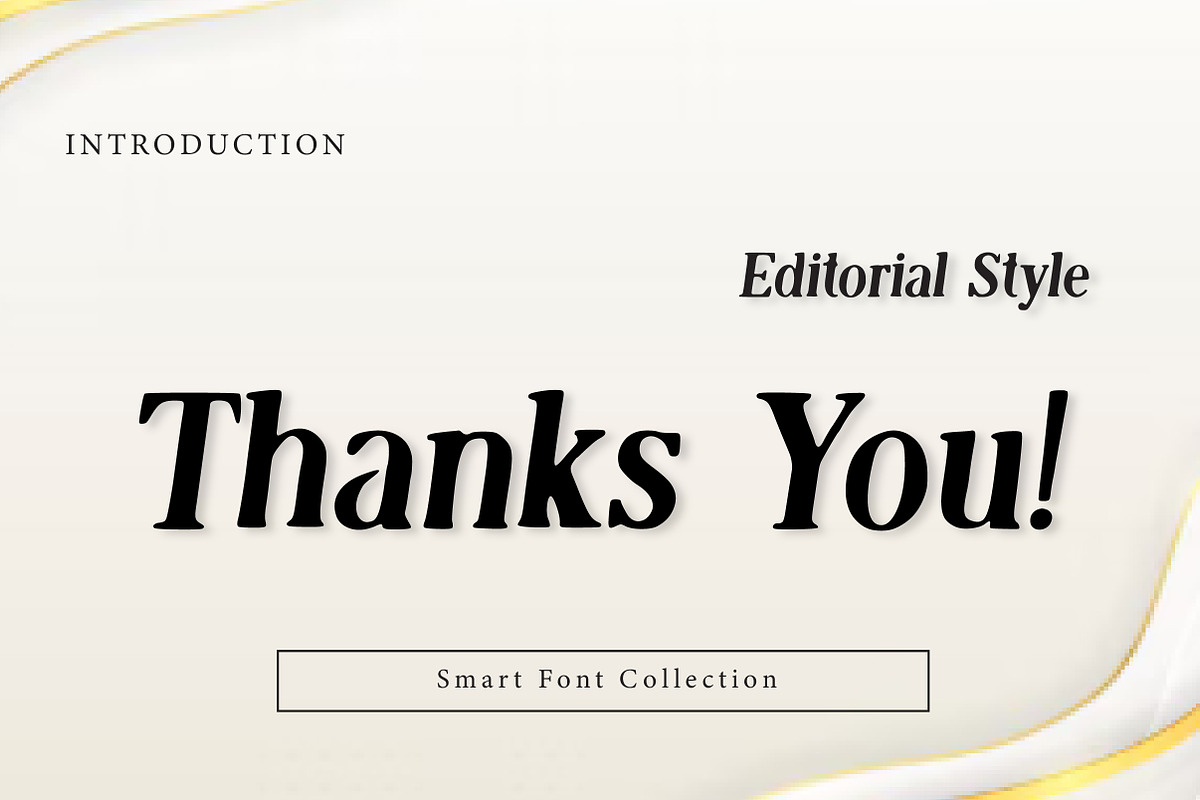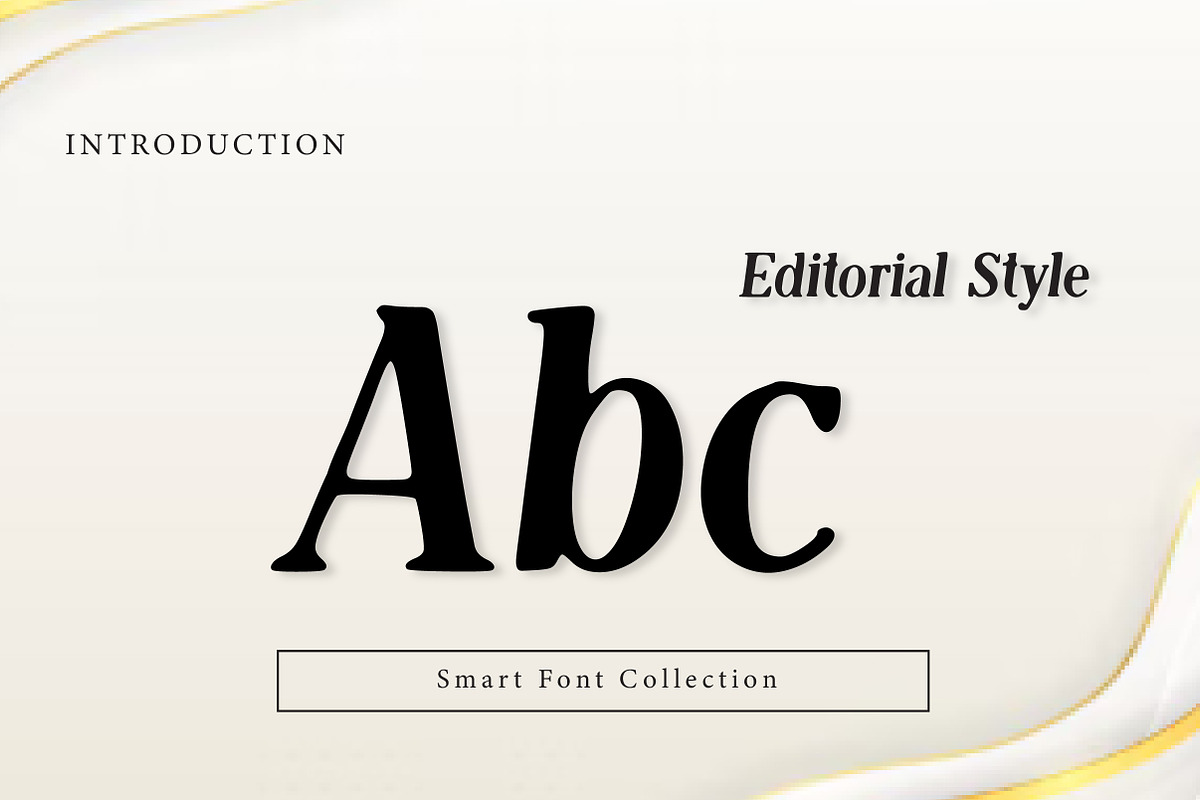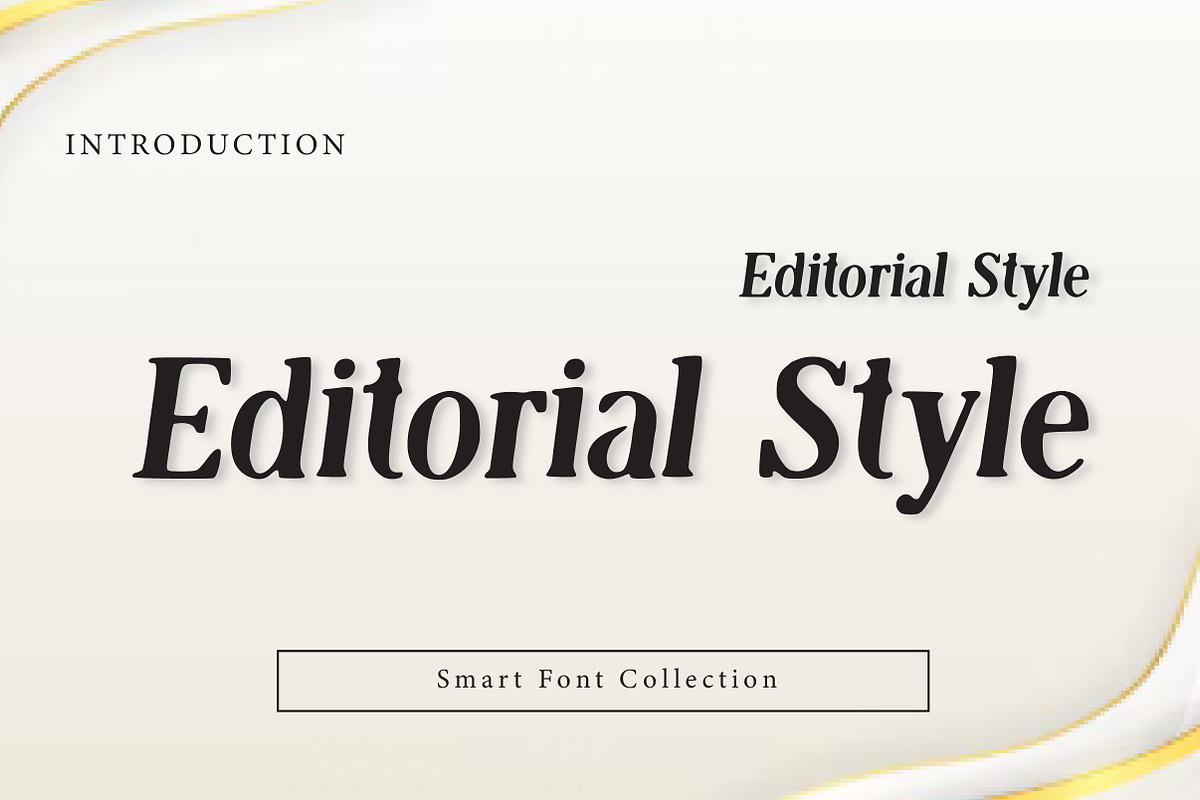
Editorial Style
Editorial Style is a refined and elegant serif display font crafted for modern luxury and high-end editorial typography. With its clean structure, high-contrast strokes, and stylish serif details, this typeface delivers a premium and sophisticated look—perfect for designers who want typography that feels professional, fashionable, and timeless.
Inspired by classic magazine headlines and modern luxury branding, Editorial Style is ideal for fashion logos, beauty branding, editorial layouts, magazine covers, book titles, wedding invitations, and premium product packaging. Its elegant proportions and smooth serif shapes ensure excellent readability while still offering a strong visual personality.
Whether you’re designing a modern magazine title, luxury brand logo, stylish social media post, or an upscale packaging label, Editorial Style adds a clean and fashionable touch to your design. It works best as a display font in headlines and titles, but also looks beautiful in short text blocks and brand identity designs.